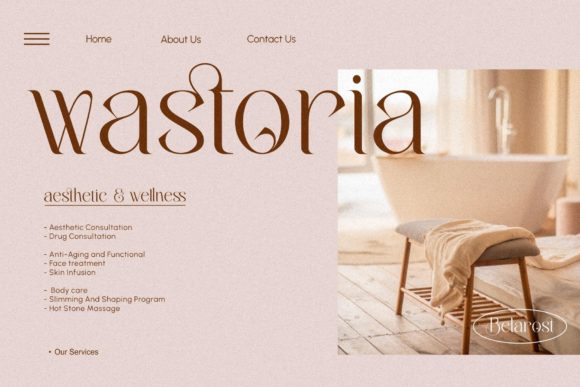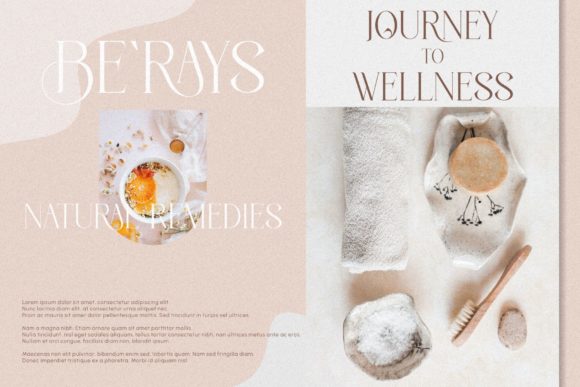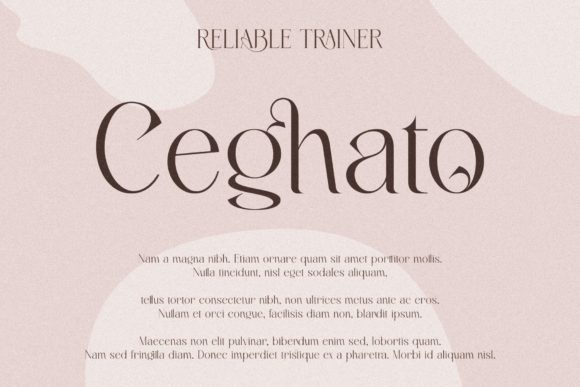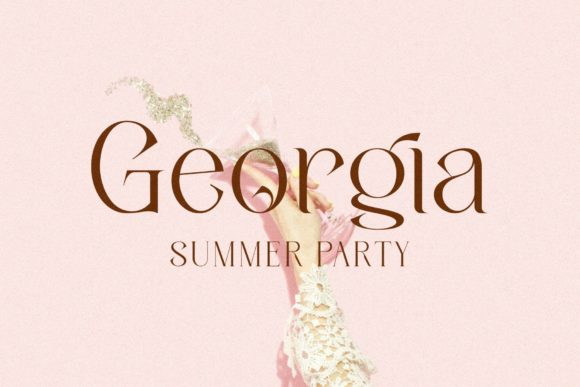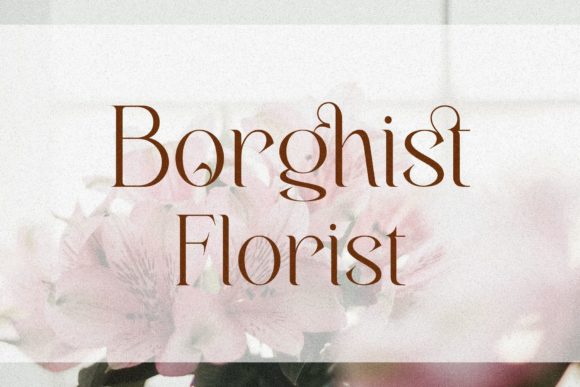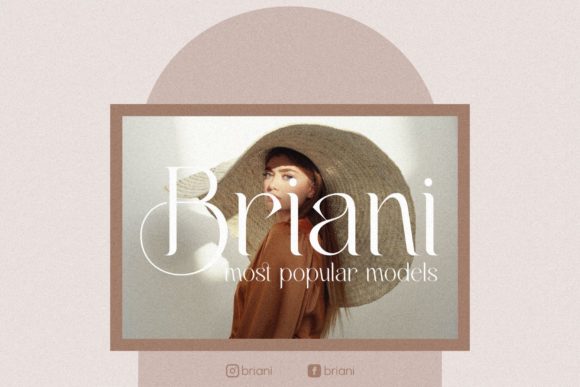
Introducing Belarost Font: Elevate Your Designs with Elegance and Sophistication
In the world of typography, a well-crafted font can make all the difference in elevating your designs from ordinary to extraordinary. If you’re a designer, crafty enthusiast, or simply someone who appreciates the art of beautiful lettering, you’re in for a treat. Say hello to Belarost Font, an elegant, slim, and stylish serif font that’s about to take your creative projects to new heights.
What Makes Belarost Font Stand Out?
Belarost Font is not just another addition to the vast sea of typefaces available today. It boasts a unique combination of characteristics that set it apart from the rest. Here are a few key features that make Belarost a must-have in your font collection:
- Elegant and Slim Design: Belarost’s sleek and slender lines exude elegance and sophistication, making it perfect for designs that require a touch of refinement.
- Stylish Serif Details: The font features beautifully crafted serif details that add a classic touch to any design, making it ideal for use in high-end branding, editorials, and more.
- PUA Encoded for Easy Access: Belarost is PUA (Private Use Area) encoded, which means you can easily access all the glyphs and swashes without any hassle. This feature is especially useful for designers who want to experiment with different styles and variations.
Whether you’re working on a logo design, branding project, editorial layout, or crafty endeavor, Belarost Font is an excellent choice. Its versatility and stylish appearance make it suitable for a wide range of applications, including:
- Branding and Logos: Create a lasting impression with a custom logo that showcases your brand’s personality and style.
- Editorials and Magazines: Add a touch of sophistication to your editorial designs with Belarost’s elegant and refined appearance.
- Packaging and Product Design: Make your products stand out on store shelves with eye-catching packaging that features Belarost’s stylish typography.
- Crafting and DIY Projects: Add a personal touch to your crafty endeavors, such as handmade cards, invitations, and scrapbooking projects.
Tips for Using Belarost Font Effectively
To get the most out of Belarost Font, here are a few tips to keep in mind:
- Experiment with Font Sizes: Belarost’s elegant design looks great in various font sizes, from large headings to smaller body text.
- Play with Swashes and Glyphs: Take advantage of Belarost’s PUA encoding to experiment with different swashes and glyphs, adding a unique touch to your designs.
- Pair it with Other Fonts: Combine Belarost with complementary fonts to create visually appealing contrast and add depth to your designs.
Belarost Font is a stunning addition to any designer’s toolkit. Its elegant, slim, and stylish design, combined with PUA encoding for easy access to glyphs and swashes, makes it an excellent choice for a wide range of creative projects. Whether you’re a seasoned designer or a crafty enthusiast, Belarost is sure to elevate your designs and help you create something truly special. So why wait? Get creative with Belarost Font today and discover a world of typographic possibilities!